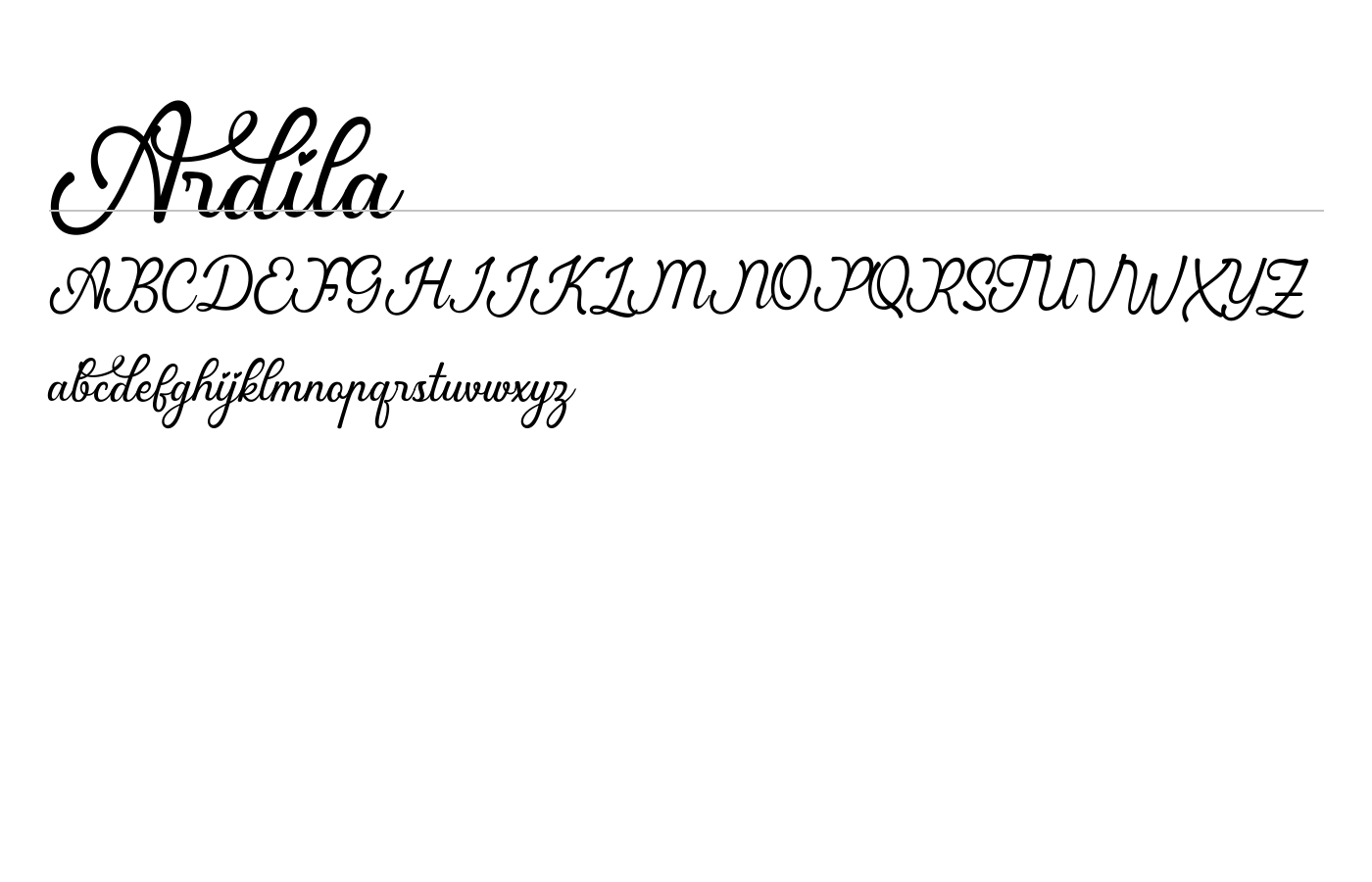
Ardila is an elegant script font with delicate, flowing strokes and a refined, handwritten feel. Its moderate contrast and graceful letterforms, including unique details like heart-shaped dots, lend a romantic and sophisticated personality, making it ideal for invitations, branding, and decorative headings. This font works beautifully in designs that want to evoke charm and a personal touch, especially for fashion, wedding, and luxury themes.
Ardila Font
About Ardila Font
| Font family | Ardila Font |
| Designer | Rangga Singgih Subekti |
| Trademark | Subectype |